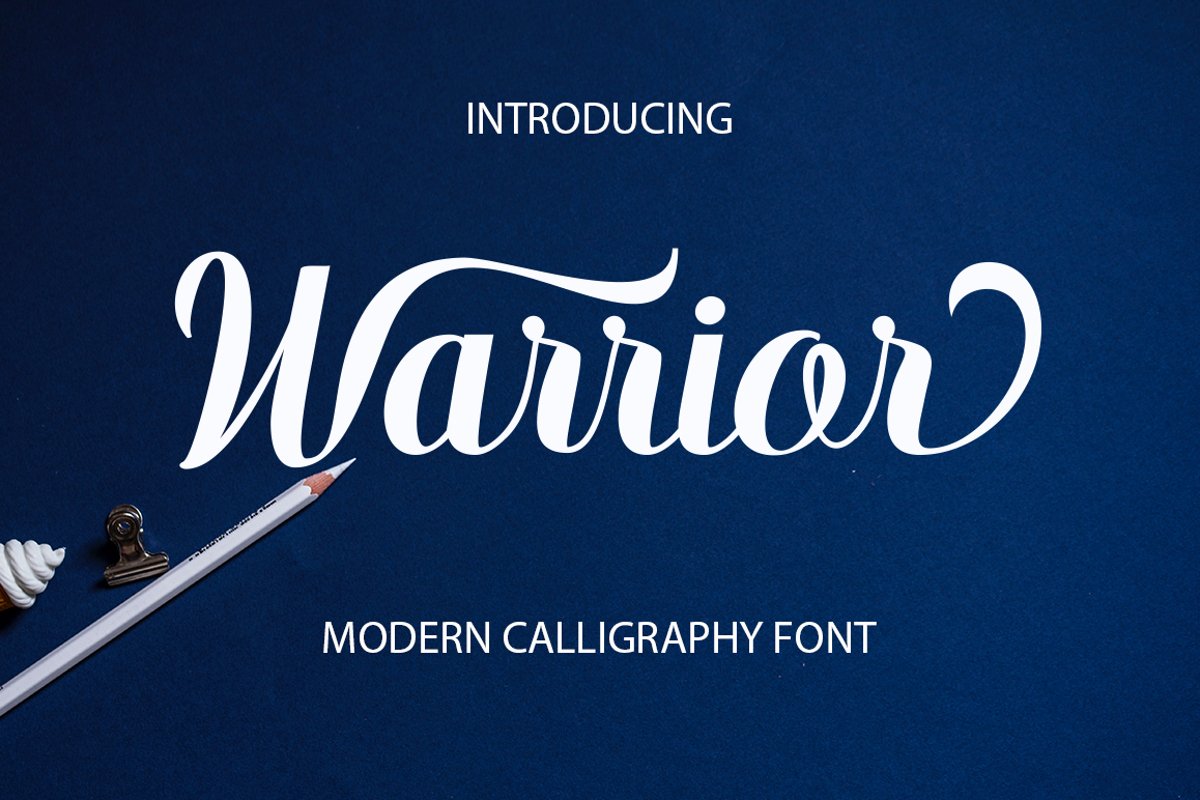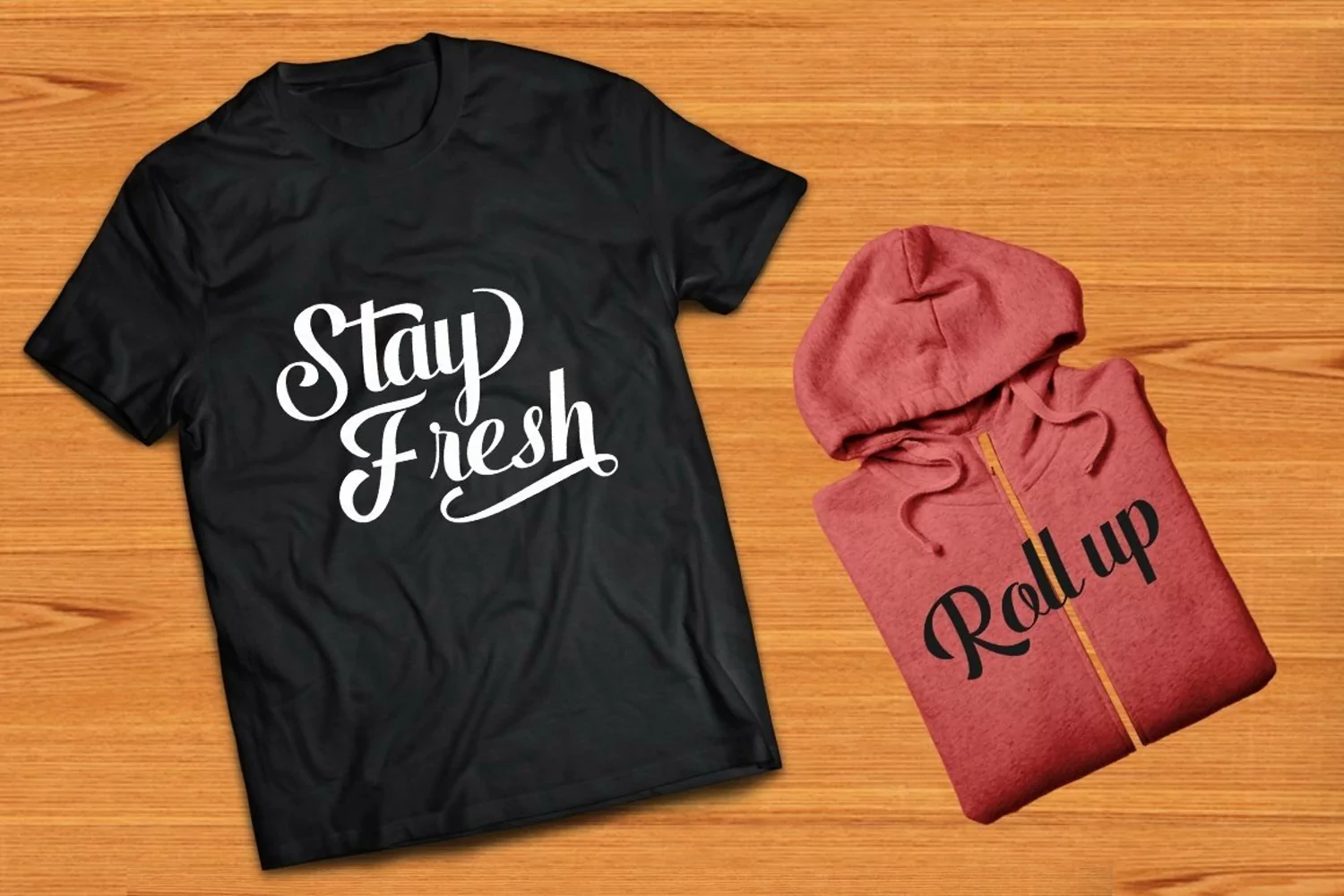
Warrior Script
Warrior Script has 374 glyphs. including multiple language support. With OpenType features with stylish alternatives, ligatures and characters, allowing you to mix and match pairs of letters to fit your design, as well as a touch of ornament to make this font look elegant.